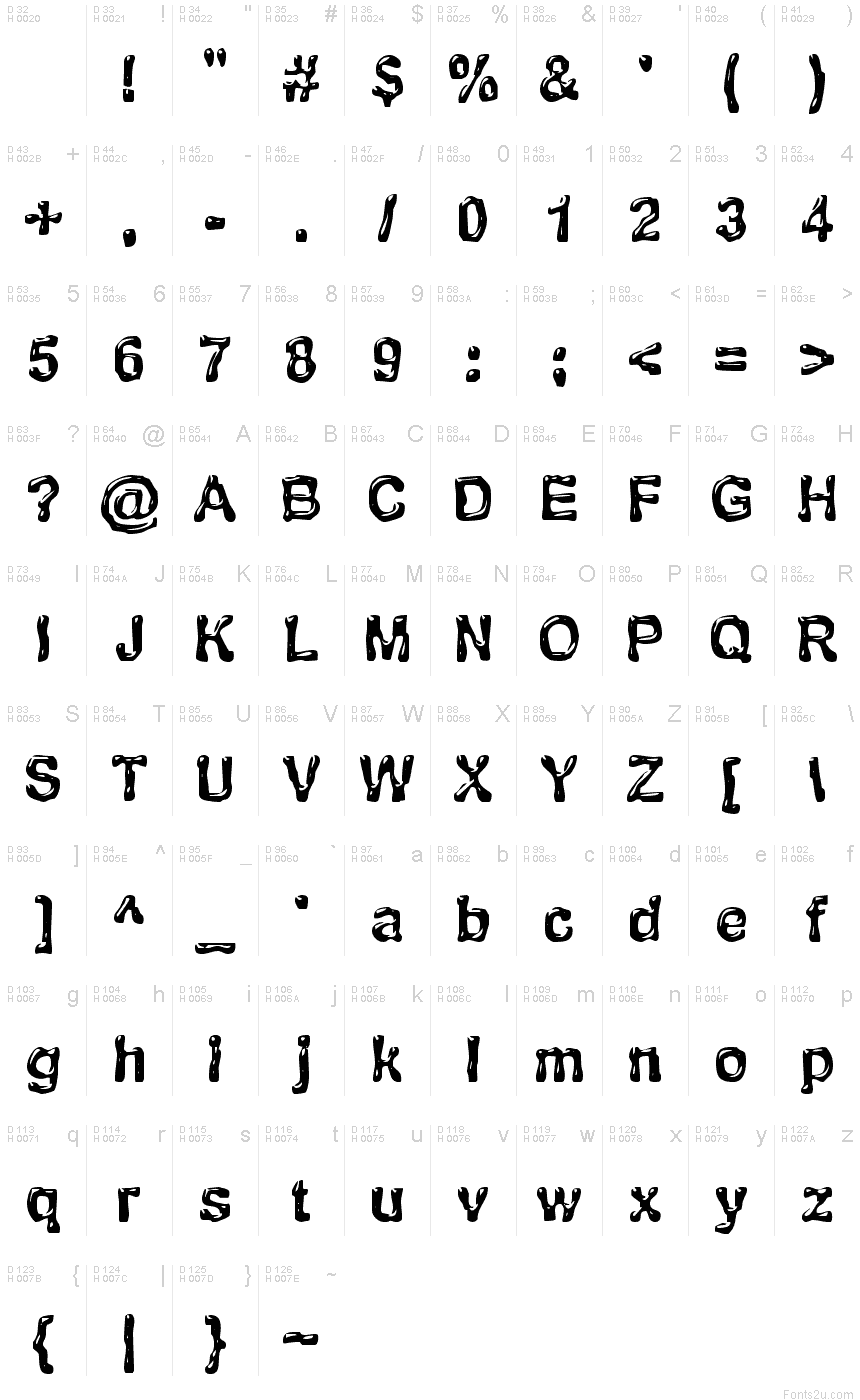
BN M@TAN
Bn M@tan font by Ben Nathan is a free distorted display typeface that looks like it’s been poured onto the page in thick, inky blobs. The letters bulge and wobble with a glossy, liquid feel, as if they’re slowly melting or crawling toward the viewer. Irregular contours and heavy, squashed shapes give every word a noisy, unruly presence that grabs attention instantly and refuses to sit still.
Using Bn M@tan, you can push titles and logos into slippery, cartoon-creepy territory that’s great for Halloween graphics, horror-comedy posters, slime-themed kids’ packaging, edgy event flyers, game titles, and YouTube thumbnails. This free font works best at large sizes where its drips and distortions can really ooze, and it pairs well with a plain, geometric sans serif for supporting text to keep things readable.